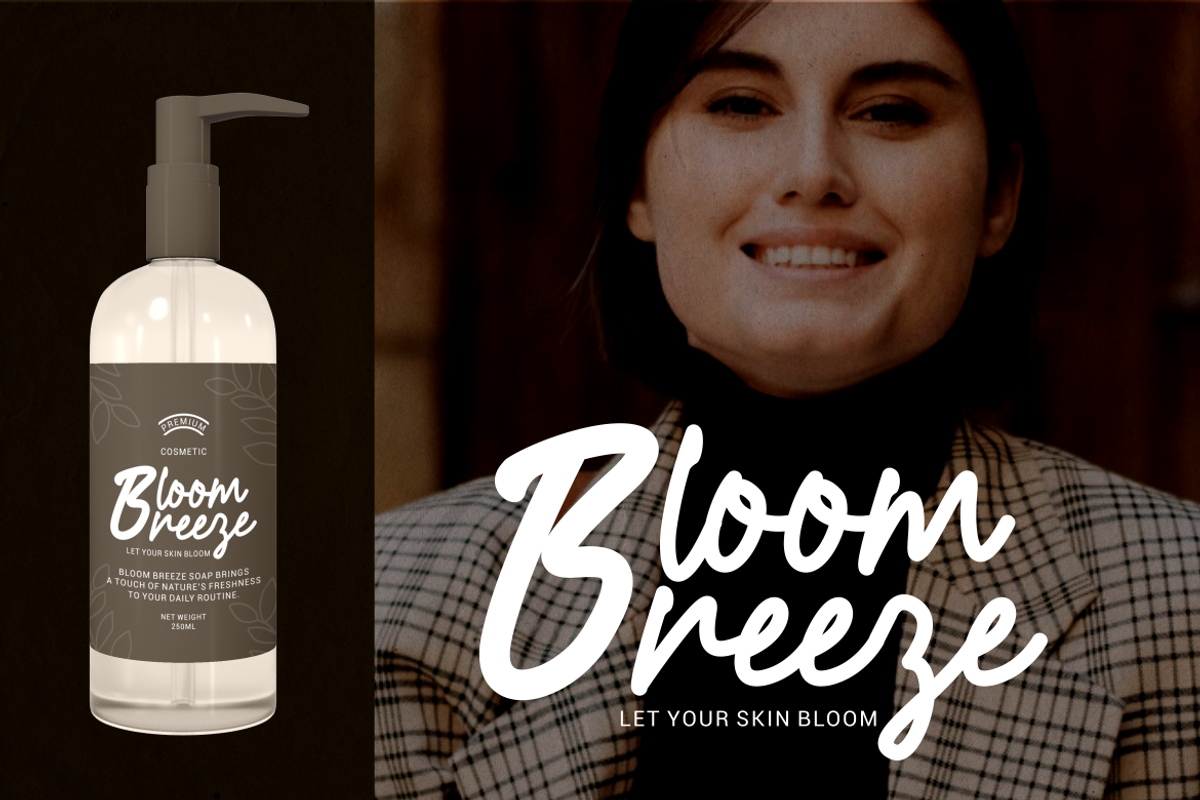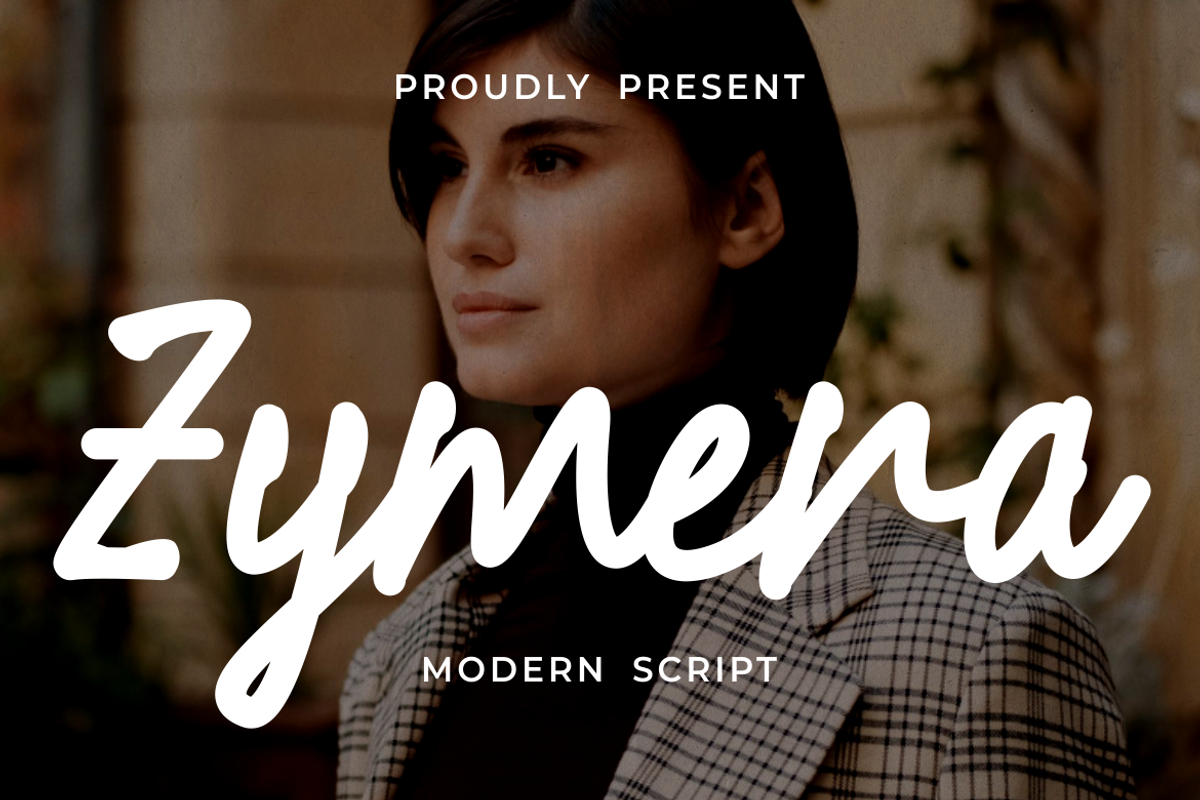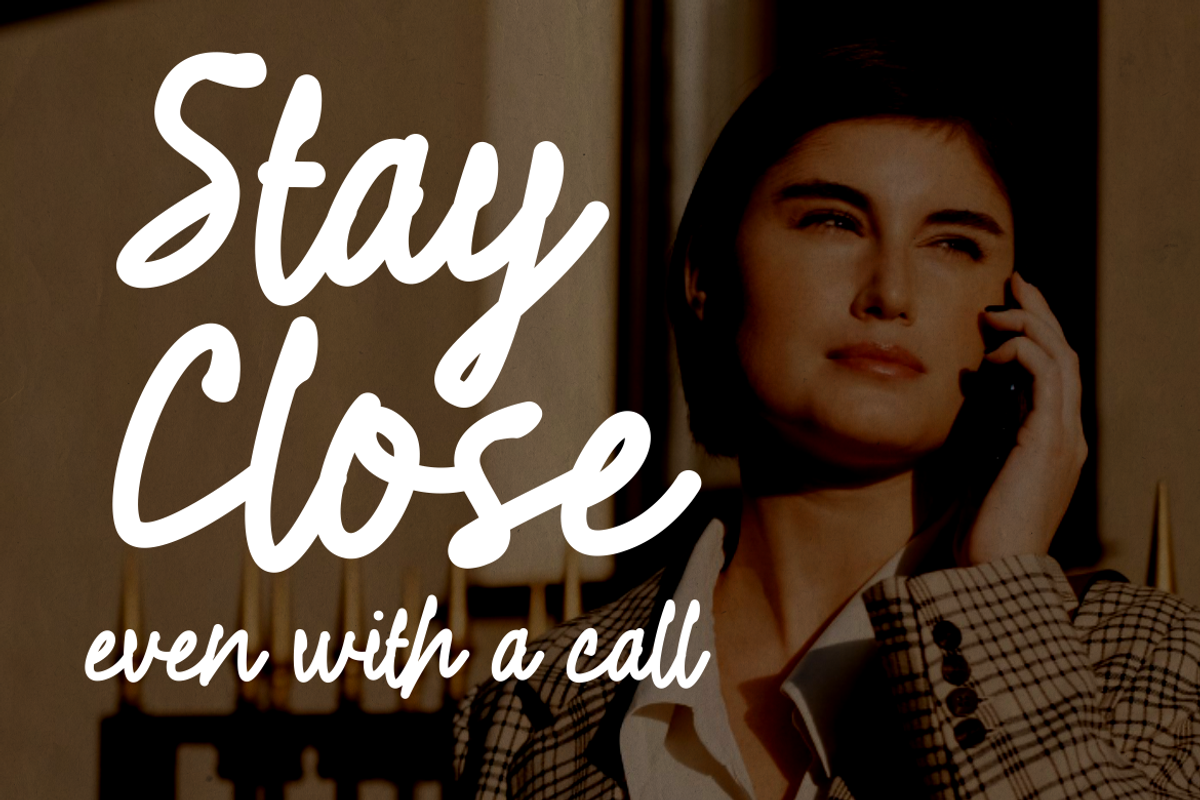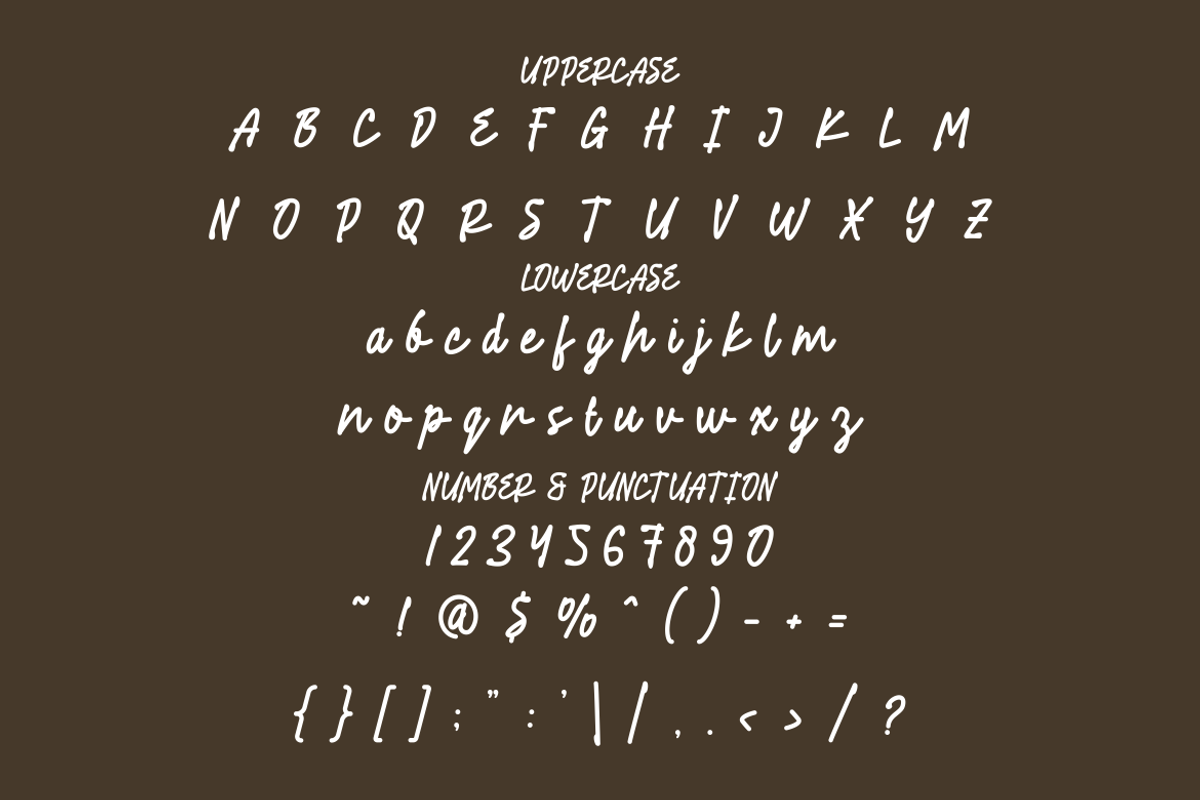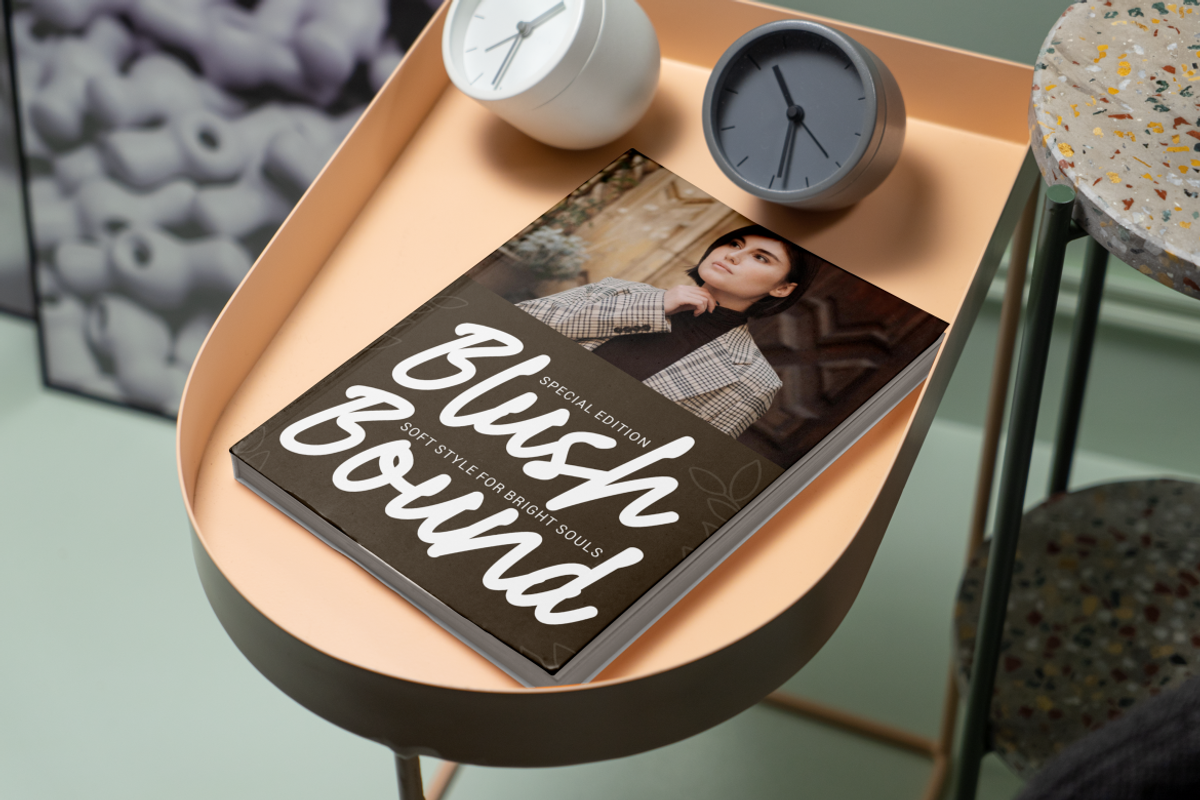
Zymera Modern Script Font
Zymera Modern Script Font delivers a refined handwritten character with a confident, contemporary voice. Each letter features fluid strokes with smooth curves and controlled transitions. The stroke weight feels balanced, not too thin and not overly bold. This balance creates a natural rhythm that stays readable across sizes. The letter height appears consistent, while ascenders and descenders add graceful movement. Curves feel organic, and terminals remain soft without looking fragile. The script connection flows naturally, creating a continuous writing feel that looks authentic and intentional. Spacing is well managed, preventing crowded words while maintaining a cohesive word shape. Zymera Modern Script Font offers a clean handwritten structure without rough textures, making it suitable for polished and professional projects.
Zymera Modern Script Font works well for designers who need warmth without losing clarity. The style feels modern, elegant, and slightly expressive, making it ideal for logo design and branding systems. It performs well in headlines, product packaging, and advertising layouts where personality matters. The font supports invitation cards, greeting cards, and crafting projects that require a personal tone. It also fits magazine titles, book covers, film titles, and sticker designs. Words remain legible even at smaller sizes, which helps in business branding and promotional materials. Zymera Modern Script Font blends softness and structure, giving designers flexibility across digital and print media. The script style communicates confidence, friendliness, and modern taste, making it a strong choice for brands that value human touch and visual elegance.